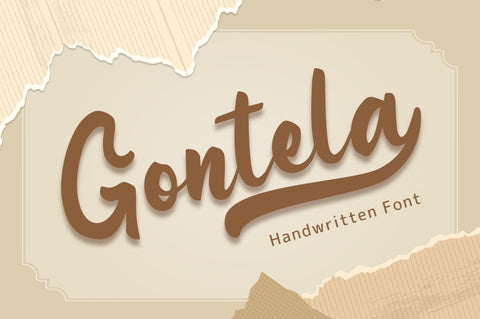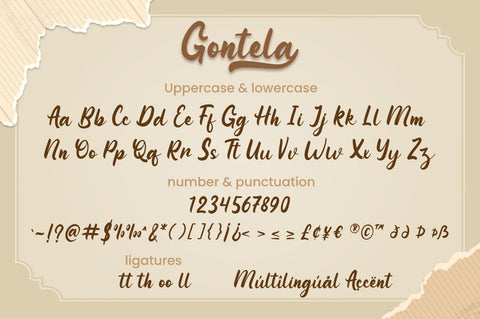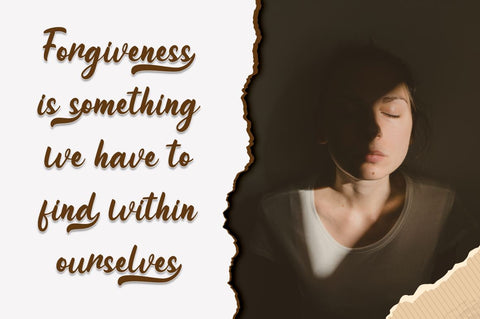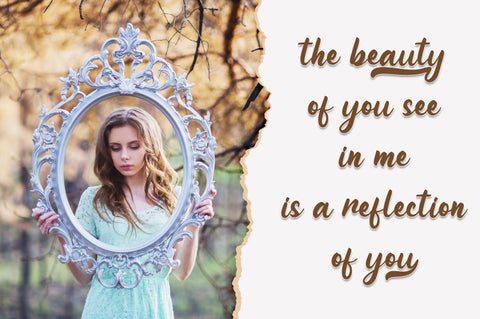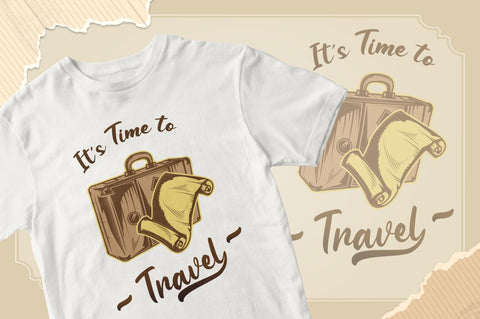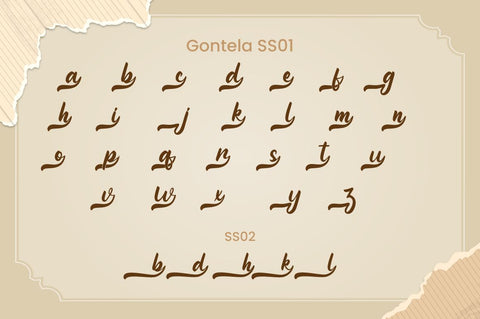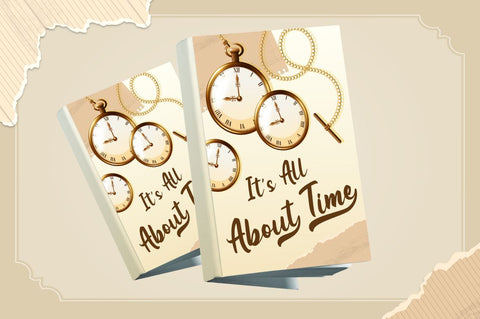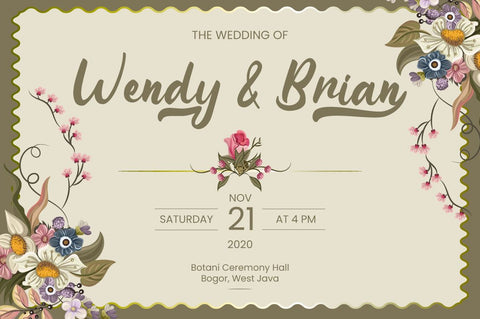
Gontela - Handwritten Font
Introducing Gontela - Inspired by typeface on 70s era, Gontela the handwritten vintage font. Combine it with ending swash for better letterform.
Gontela is perfect for children product, branding, logo, invitation, stationery, product packaging, merchandise, monogram,
blog design, game titles, cute style design, Book/Cover Title and more.
- Ending swash